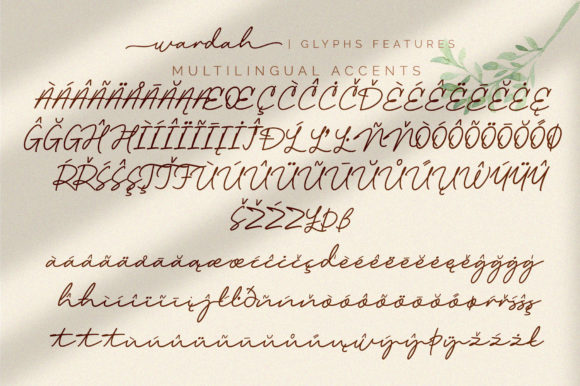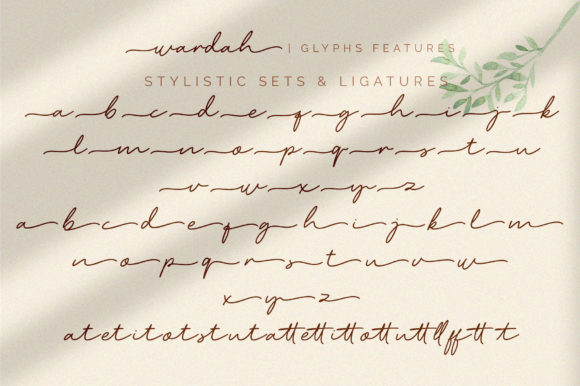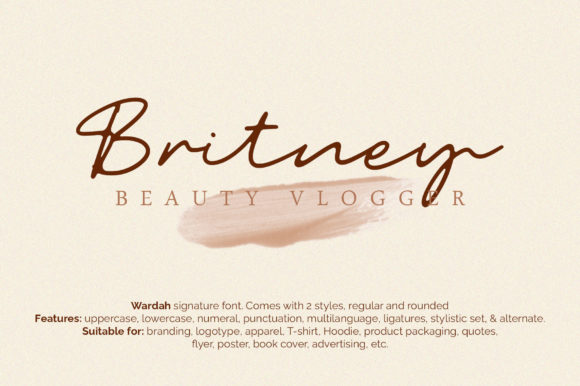
About Wardah Font
Wardah is a fashionable and unique handwritten font. It will add a luxury spark to any design project that you wish to create! This font is PUA encoded which means you can access all of the amazing glyphs and ligatures with ease!